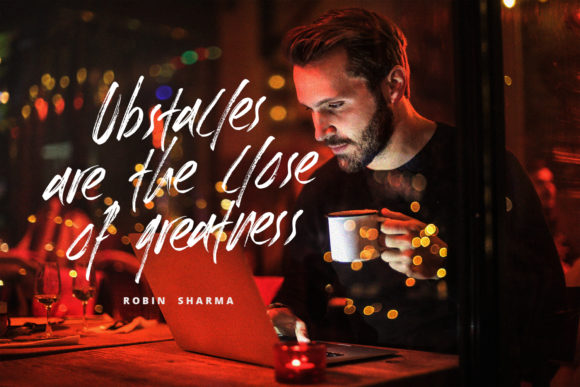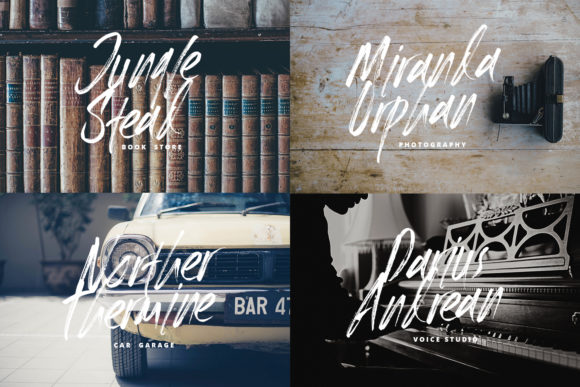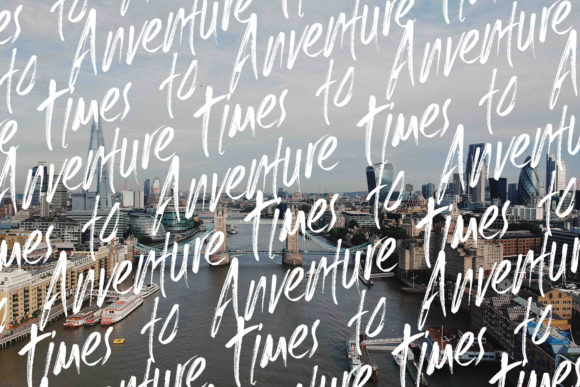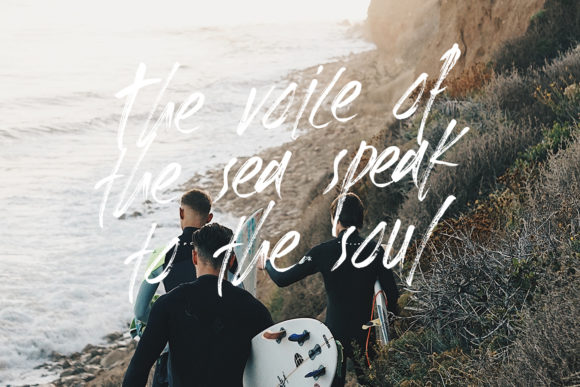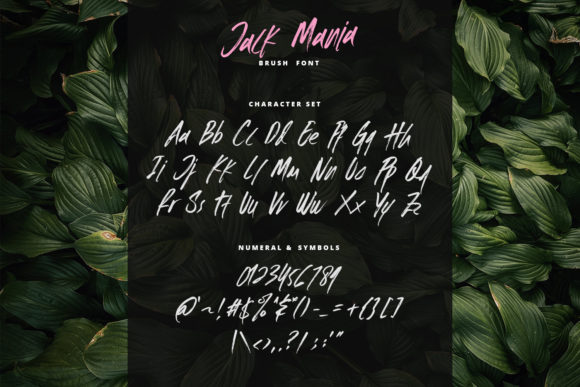
Jack Mania Font
About Jack Mania Font
Jack Mania is an equally glowing and elegant handwritten font with a contemporary vibe. Get inspired by this one-of-a-kind font.